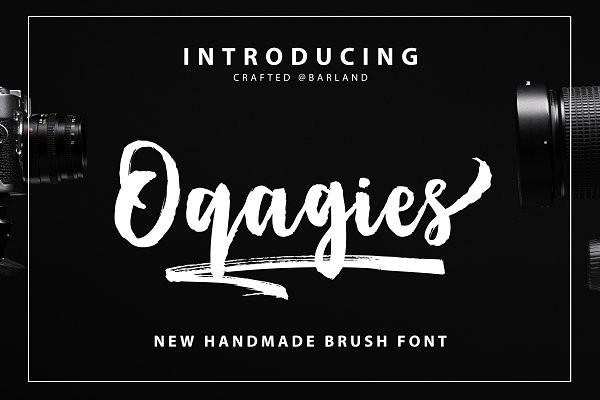
My Font "Oqagies Brush"
" Oqagies Brush " is a hand-made marker pen fonts, designed to create stunning hand-lettering quickly and easily. Also comes with 17 bonus, ideal for giving your text that final touch of finesse! Perfect for projects brands, the title, logo, correspondence, signage, labels, newsletters, badges, t-shirt, logos, product packaging, posters, news, blogs, everything including personal charm.